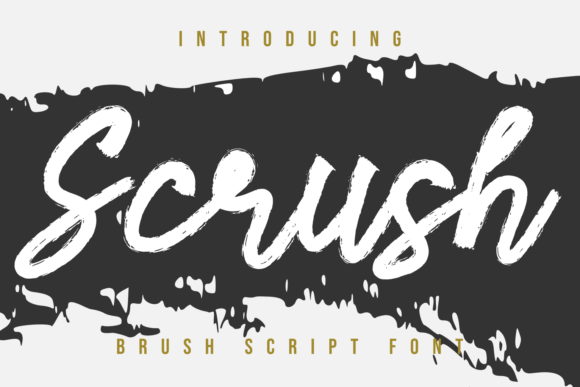
Discover the Beauty of Scrush Font: A Lovely, Flowing, and Brushed Handwritten Font
When it comes to typography, the right font can make all the difference in the world. It can elevate your design, convey your message, and even evoke emotions. If you’re looking for a font that can add a touch of elegance and sophistication to your creations, look no further than Scrush Font. In this article, we’ll explore the beauty of Scrush Font, its features, and why it’s a wonderful asset to your font library.
What is Scrush Font?
Scrush Font is a lovely, flowing, and brushed handwritten font that is perfect for a wide range of design projects. Its unique and elegant style makes it an excellent choice for anyone looking to add a touch of sophistication to their creations. Whether you’re designing a logo, creating a social media post, or working on a large-scale design project, Scrush Font is sure to impress.
Key Features of Scrush Font
- Handwritten style: Scrush Font has a beautiful, handwritten style that gives it a personal and unique touch.
- Flowing and connected letters: The font features flowing and connected letters that create a sense of movement and fluidity.
- Brushed texture: The font has a subtle brushed texture that adds depth and visual interest.
- Versatile: Scrush Font is versatile and can be used for a wide range of design projects, from logos and branding to social media posts and large-scale designs.
Why Use Scrush Font?
Scrush Font is a wonderful asset to your font library, regardless of the topic or project. Here are just a few reasons why:
- Elegance and sophistication: Scrush Font adds a touch of elegance and sophistication to any design project.
- Emotional connection: The font’s handwritten style and flowing letters create an emotional connection with the viewer.
- Versatility: Scrush Font can be used for a wide range of design projects, from formal and professional to casual and creative.
- Unique style: The font’s unique style sets it apart from other fonts and makes it a great choice for designers looking to stand out.
Tips for Using Scrush Font
Here are a few tips for using Scrush Font effectively:
- Use it sparingly: Because Scrush Font is so elegant and sophisticated, it’s best to use it sparingly to avoid overwhelming the viewer.
- Pair it with other fonts: Scrush Font pairs well with other fonts, so don’t be afraid to experiment with different combinations.
- Adjust the size and color: Experiment with different sizes and colors to find the perfect combination for your design project.
- Use it for headlines and titles: Scrush Font is perfect for headlines and titles, where its elegance and sophistication can really shine.
Common Uses of Scrush Font
Scrush Font is a versatile font that can be used for a wide range of design projects, including:
- Logos and branding: Scrush Font is perfect for logos and branding, where its elegance and sophistication can help create a lasting impression.
- Social media posts: The font is great for social media posts, where its unique style can help your content stand out.
- Large-scale designs: Scrush Font can be used for large-scale designs, such as billboards and posters, where its elegance and sophistication can really shine.
- Wedding and event designs: The font is perfect for wedding and event designs, where its elegance and sophistication can help create a romantic and memorable atmosphere.
In conclusion, Scrush Font is a lovely, flowing, and brushed handwritten font that is perfect for a wide range of design projects. Its elegance and sophistication make it a wonderful asset to your font library, and its versatility ensures that it can be used for everything from logos and branding to social media posts and large-scale designs. Whether you’re a professional designer or just starting out, Scrush Font is definitely worth checking out.